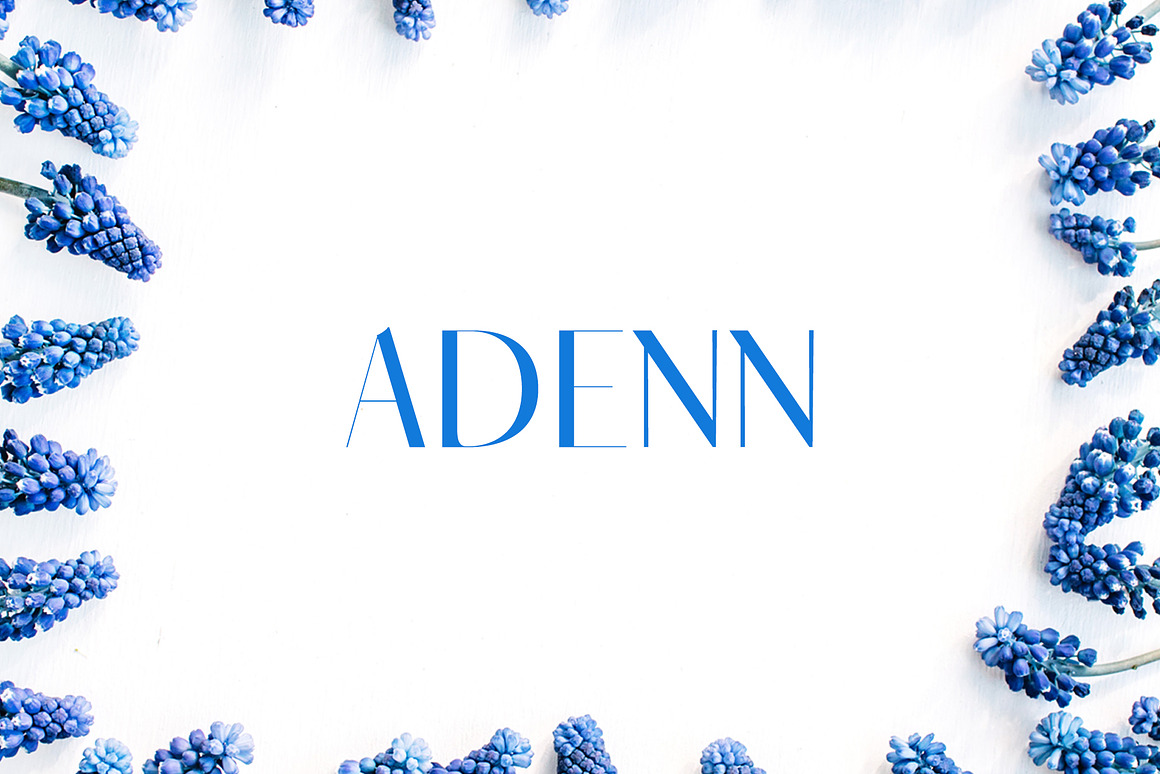
Adenn Serif 4 Font Family Pack
Adenn Serif 4 Font Family Pack is perfect for corporate annual reports, financial publications, academic textbooks, legal documents, business correspondence, professional websites, traditional branding, and formal presentation materials.
Adenn Serif 4 Font Family Pack is exciting because it masterfully balances traditional serif elegance with contemporary functionality, featuring crisp letterforms and refined details that project authority and trustworthiness. Its sophisticated character design ensures professional credibility across all business applications.
Adenn Serif 4 Font Family Pack family includes light, regular, medium, and bold weights, each carefully crafted to maintain consistent visual harmony while providing comprehensive typographic flexibility for complex document hierarchies.
Adenn Serif 4 Font Family Pack Free Download represents the pinnacle of professional typography for serious business communications. This distinguished typeface collection showcases exceptional attention to detail through its precisely crafted serifs and optimized character proportions that enhance readability while maintaining formal elegance. The font's authoritative presence makes it ideal for financial institutions, law firms, consulting agencies, and corporate organizations requiring credible visual representation.
Business professionals consistently choose Adenn Serif 4 Font Family Pack for its ability to convey expertise and reliability. Its classical foundation provides timeless appeal while modern refinements ensure optimal performance across digital platforms and high-quality print materials. The font's versatile weight range accommodates diverse communication needs, from detailed financial reports to executive presentations requiring clear visual hierarchy.
Corporate design teams appreciate Adenn Serif 4 Font Family Pack's versatility in establishing strong brand identity while maintaining the conservative appearance required for regulated industries. Its balanced personality successfully bridges traditional expectations with contemporary design standards, making it an invaluable resource for organizations seeking to project stability, competence, and trustworthiness through superior typography.